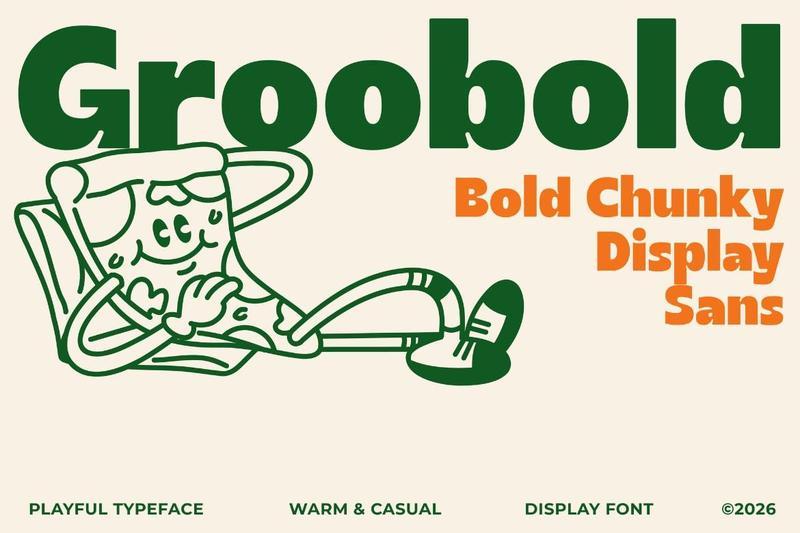
Groobold is a bold, chunky display sans serif font built to grab attention and hold it. With its thick, rounded letterforms and strong visual weight, Groobold strikes the perfect balance between playful energy and bold impact making it a versatile choice for designs that need to stand out.
Whether you’re crafting logos, posters, packaging, or social media graphics Groobold delivers that chunky, confident personality that makes your design impossible to overlook.
PERFECT FOR
Logo & brand identity design
Poster & event design
Social media headers & thumbnails
Product packaging
YouTube thumbnails & digital ads
Editorial & magazine layouts
Game UI & app design
Display signage & banners